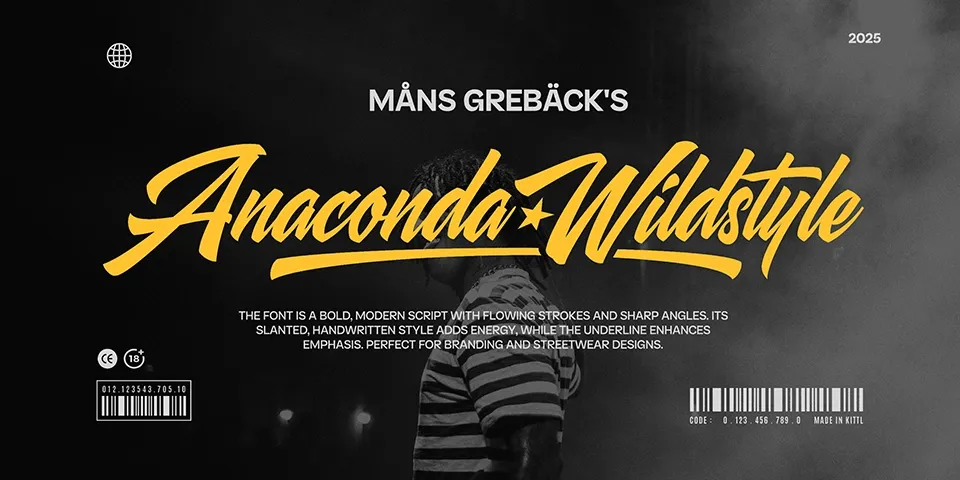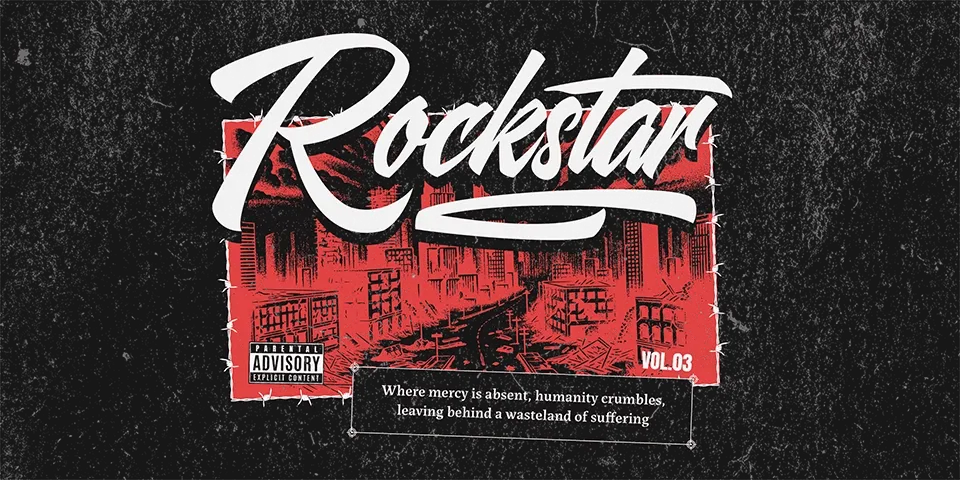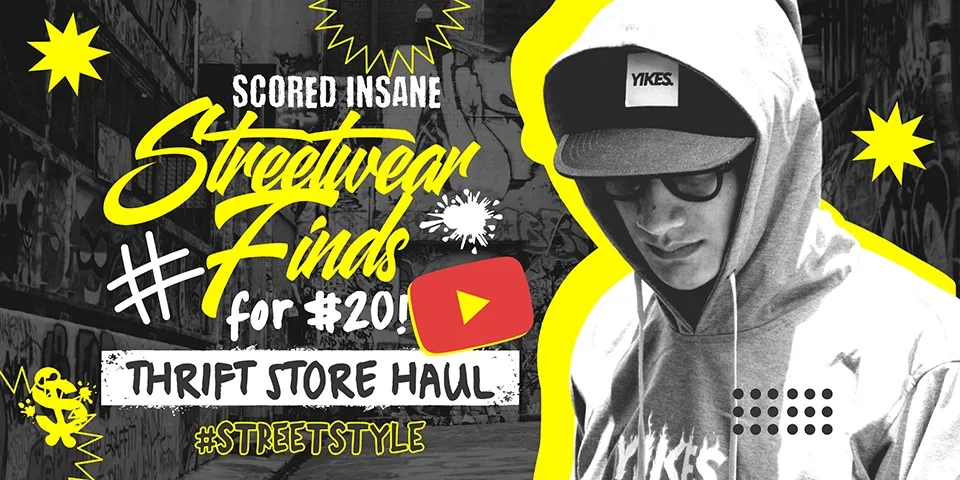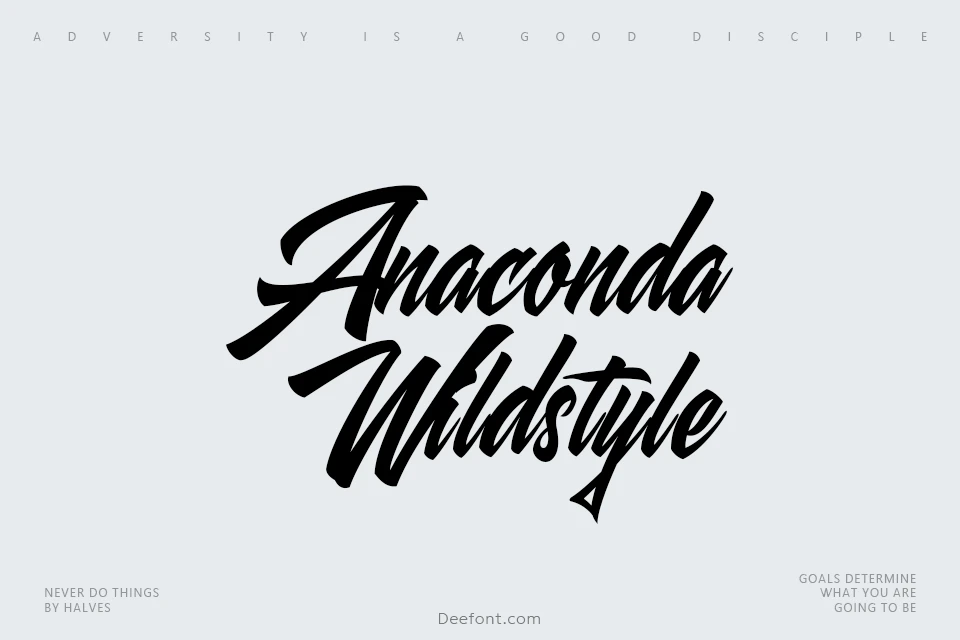
Anaconda Wildstyle Font
Anaconda Wildstyle, created by Måns Grebäck, is a bold and dynamic script font that exudes unbridled energy and self-expression. Taking inspiration from graffiti wildstyle art, its serpentine lettering features flowing strokes with sharp angles in a slanted, handwritten style. This versatile typeface includes a unique underline feature activated by using underscores, enhancing emphasis and creative possibilities. Perfect for streetwear branding, posters, logos, apparel, and music album covers, Anaconda Wildstyle brings a youthful, edgy aesthetic to any design requiring a touch of urban flair. Its striking, unrestrained character makes it ideal for projects that aim to make a bold statement.
Designed by:Måns GrebäckWebsite